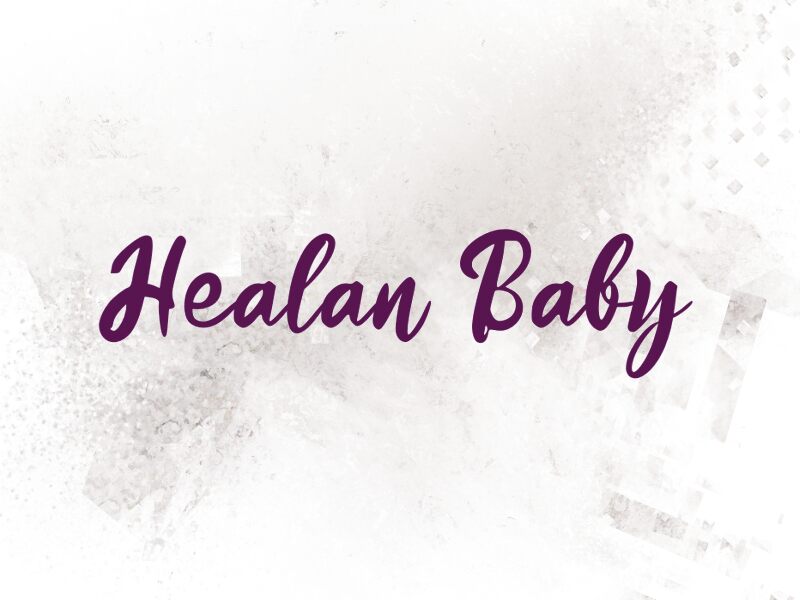
Healan Baby
Healan Baby font, designed by Wep, is a detailed handwriting-style typeface with elegance and modernity inextricably captured between each letter. This light weight flowing script font delivers an important visual signature style that lifts its readers to jump deeper beneath the surface. Let your projects stand out beautifully by capturing attention of local and global readers using Healan Baby.
This free handwritten font would work ideally for social media poster designs which explain products using cursive subheadings to improve legibility and understanding on topics at hand. Other uses include logo design, modern stationary sets for office use or wedding invitations, magazine covers, product packaging, business cards or branding elements.